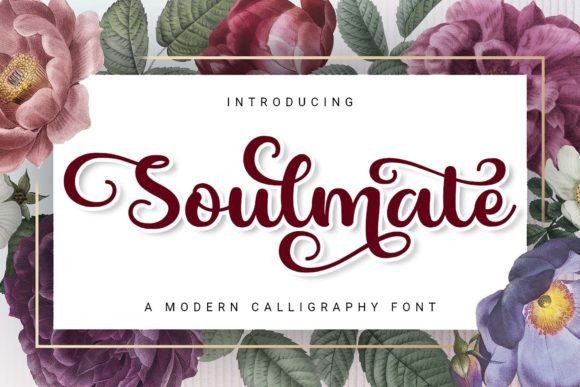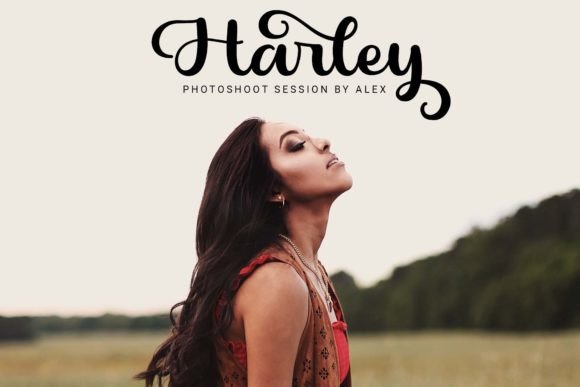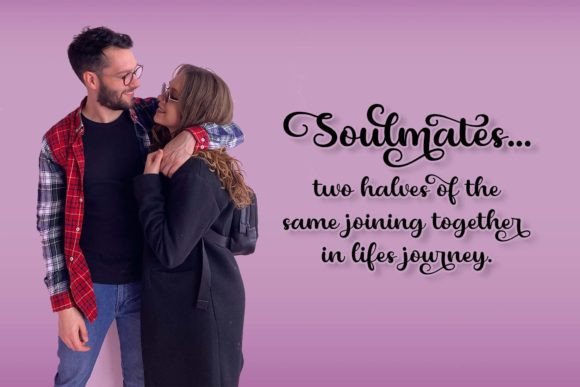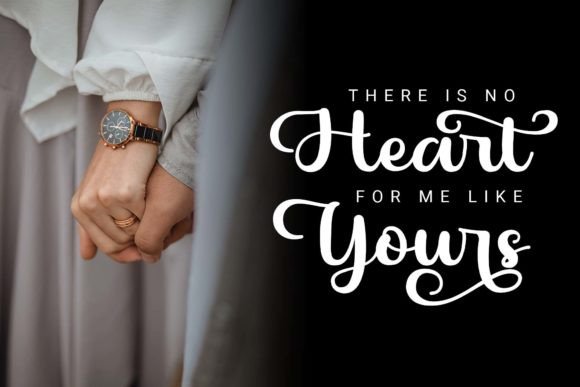
About Soulmate Font
Soulmate Font is a beautiful and delicate calligraphy typeface designed to bring luxury and grace to your projects. Its unique style combines elegance with a warm, personal touch. Whether you are designing wedding invitations, branding materials, or social media posts, Soulmate will give your work a stunning and refined look.
Elegant Calligraphy with a Unique Feel
Soulmate’s flowing letterforms are crafted to look sophisticated yet inviting. Each stroke has a natural rhythm that feels effortless and smooth. This calligraphy style creates a sense of beauty and authenticity in every word.
When you use Soulmate, your text gains a luxurious presence that feels special and heartfelt. The delicate curves and fine details make it perfect for high-end designs that need to leave a lasting impression.
Perfect for Weddings and Special Events
Soulmate shines in romantic and celebratory projects. Here are some ways you can use it:
Wedding Invitations: Add elegance to your stationery and set the tone for your big day.
Save-the-Dates: Make announcements feel warm and personal.
Event Programs: Guide your guests with style and grace.
Thank You Cards: Leave a heartfelt message that looks as beautiful as it feels.
Every letter is designed to evoke emotion and create unforgettable memories.
Versatile for Branding and Creative Projects
Soulmate is also perfect for a wide range of creative uses beyond weddings:
Luxury Branding: Use it on logos, product labels, and packaging to add sophistication.
Social Media Graphics: Elevate your posts with a stylish, polished look.
Quotes and Prints: Make inspirational messages feel artful and refined.
Personal Projects: From journals to DIY gifts, Soulmate adds a unique flair.
Its versatile style adapts effortlessly to different design needs while always maintaining its elegant personality.
Easy to Access All Glyphs and Alternates
This makes customizing your designs simple and fun. Try different letter variations to find the perfect look for every project.
Bring Luxury to Every Design
With Soulmate Font in your collection, you’ll always have the perfect typeface to make your work feel special. Whether you are creating branding for an upscale product, designing romantic invitations, or adding an elegant touch to everyday projects, Soulmate delivers stunning results every time.
Let this delicate calligraphy font be the highlight of your designs. Its unique combination of softness and sophistication will help you make a lasting impression.